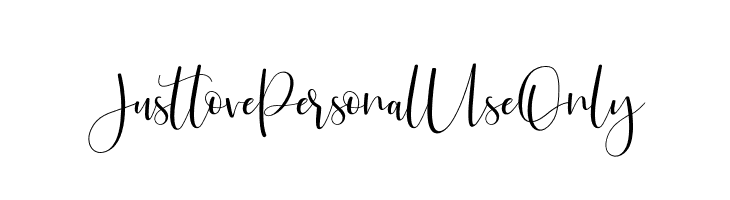
An elegant, cursive font with a fluid, handwritten style.
A cursive, handwritten-style font with elegant, flowing characters.
An elegant and flowing script font with graceful curves and loops.
A graceful, flowing script font with elegant, cursive strokes.